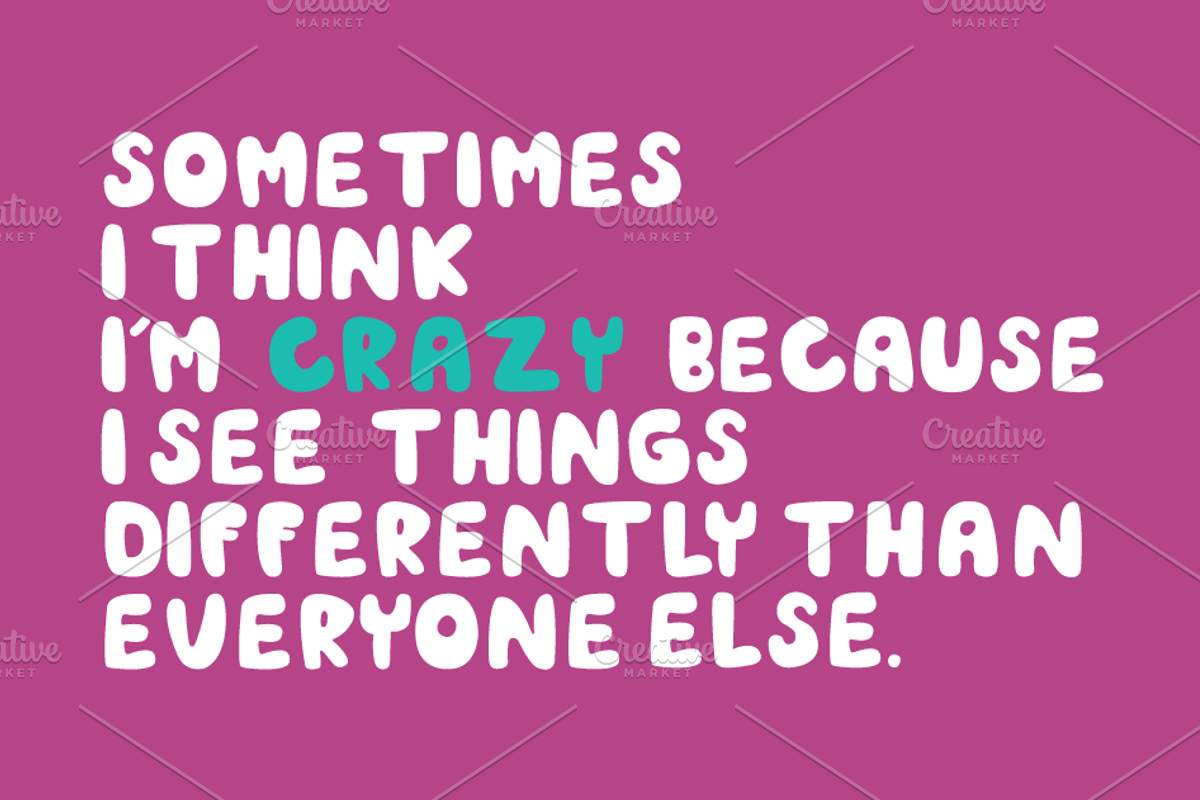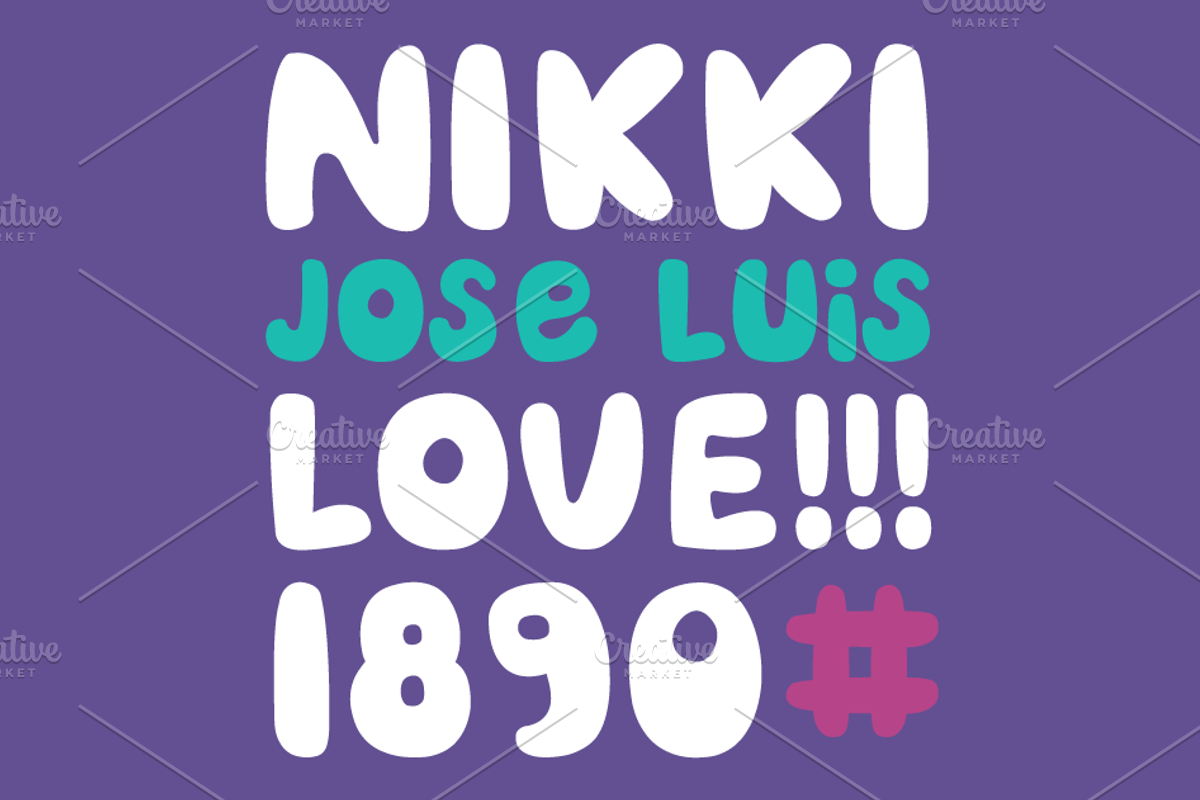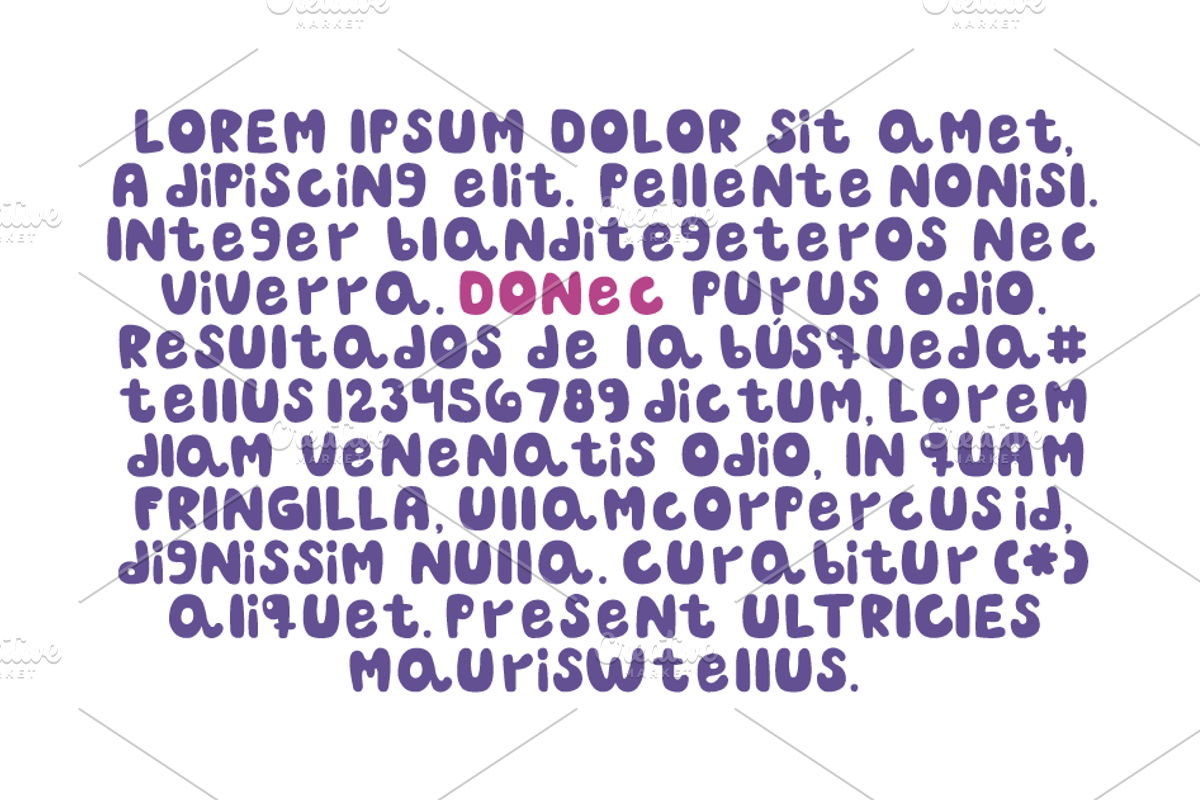
Soda Pop-Font
Soda Pop-Font by himoki is a font selected for branding, posters, packaging, typography.
Why Soda Pop-Font is worth a look
Soda Pop-Font by himoki fits naturally into Branding, posters, packaging, typography.